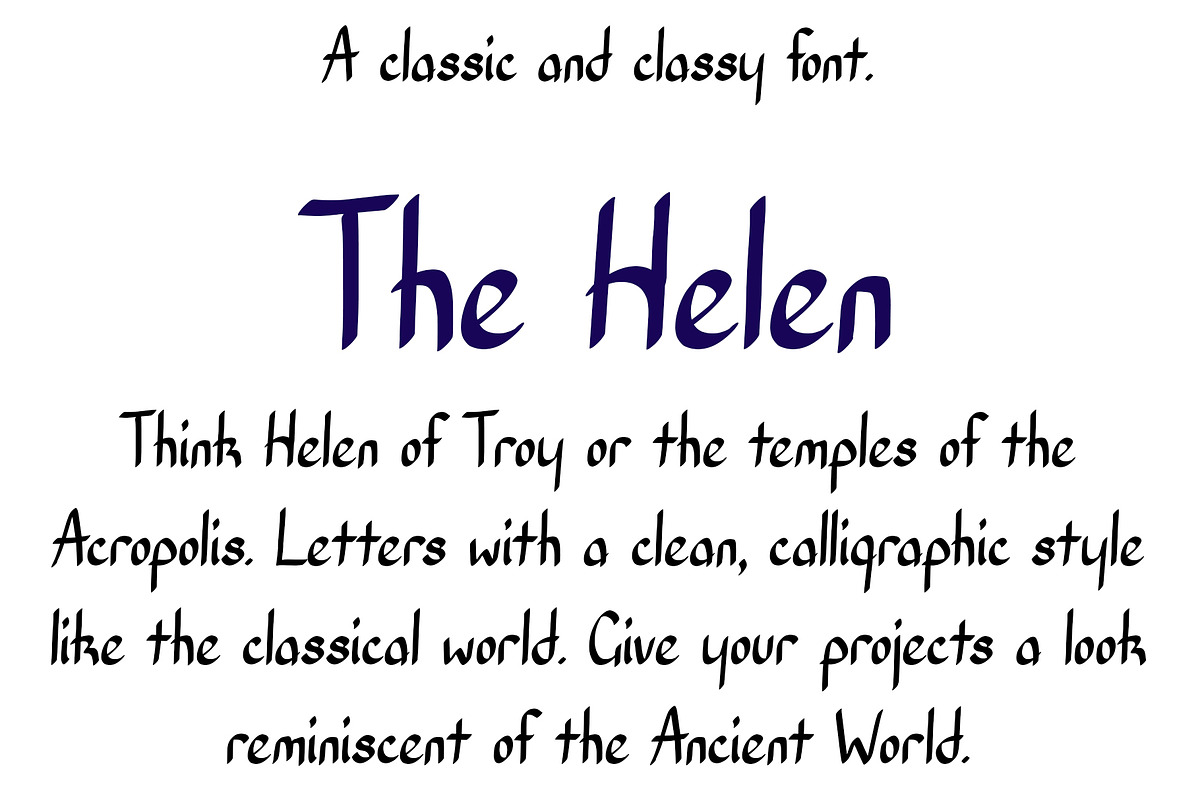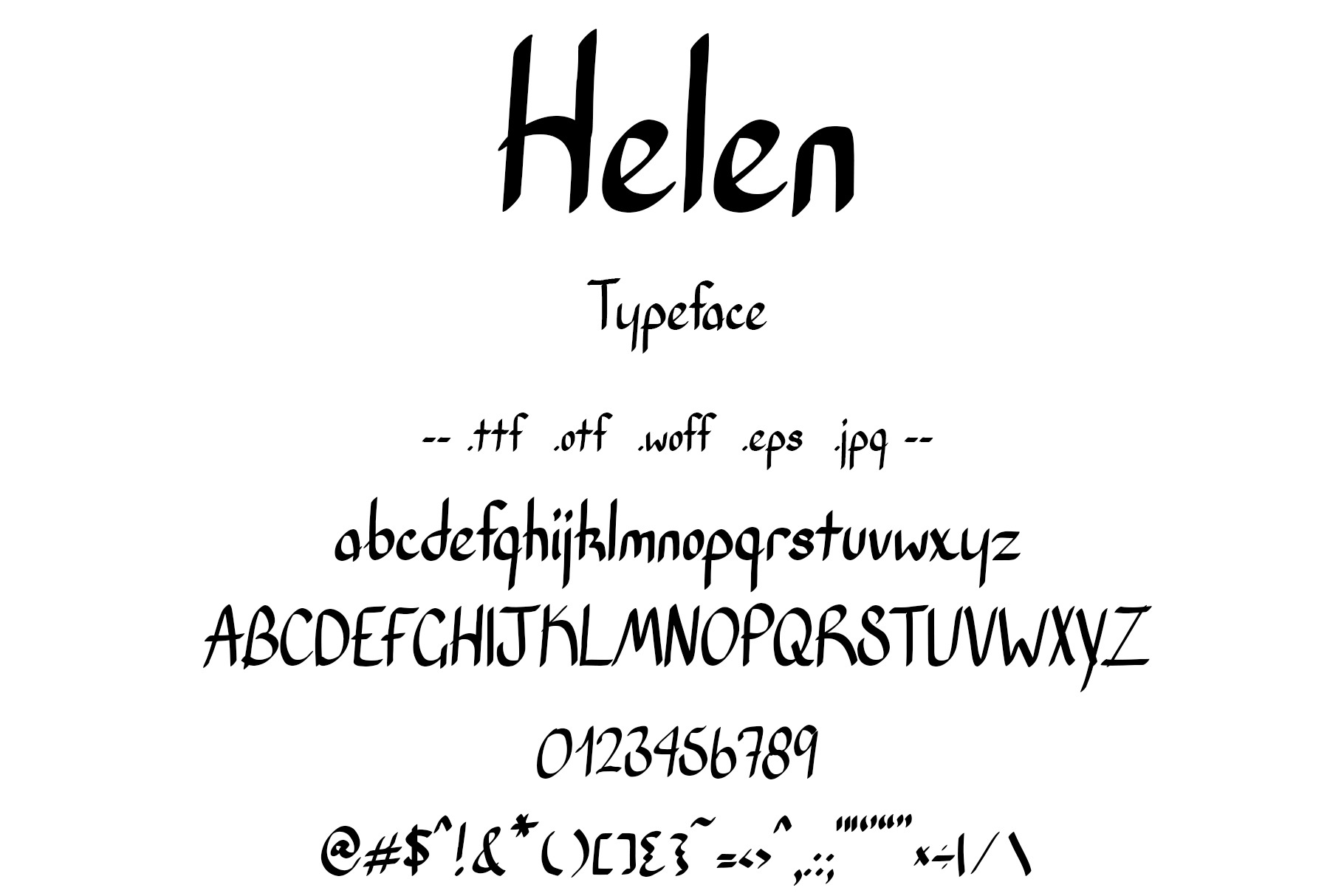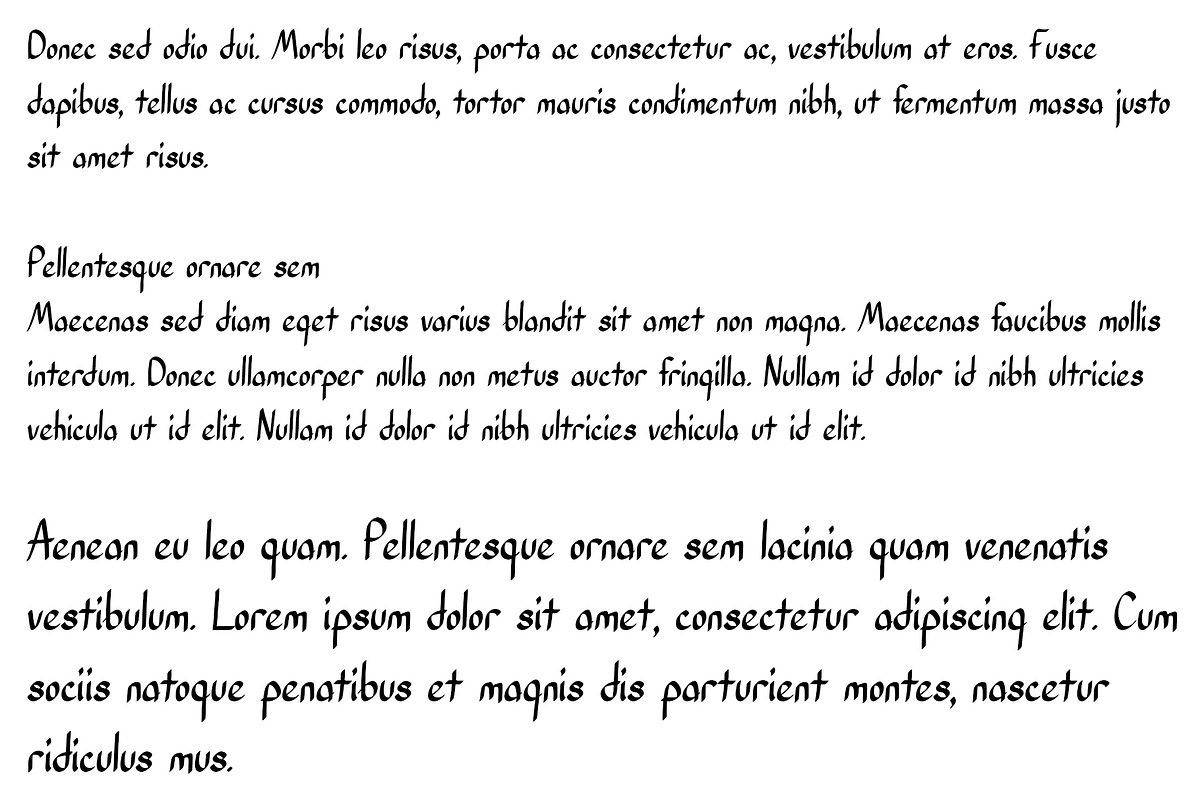
Font Helen Classical Calligraphy
Hand drawn font has classic and classical style. A typeface "Helen" reminiscent of Ancient Greece. Think Helen of Troy or the ancient temples of the Acropolis.